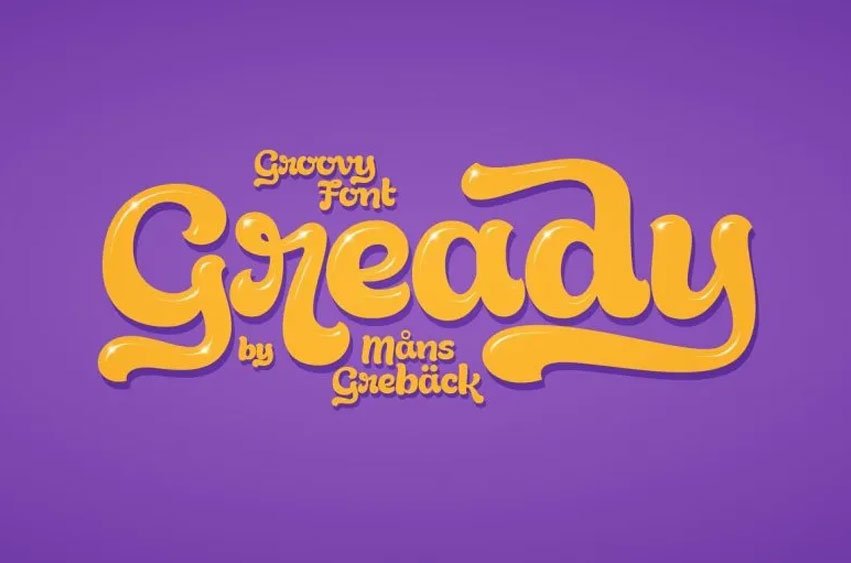
Gready Font Inspired by Modern Vintage & Retro style and combination with old american traditional style. With happy swashes and funny curves, this comic lettering has a flowing and soft character and a greedy, optimistic personality. Use it for a fresh, tasty ice cream or food store logo, a cartoon headline or any playful context speaking to the child within us.
Drawn and created by Mans Greback, this modern paintbrush font family comes in four styles: Thin, Regular, Bold and the crazy Outline variety.
Gready is built with advanced OpenType functionality and has a guaranteed top-notch quality, containing stylistic and contextual alternates, ligatures and more features; all to give you full control and customizability. It has extensive lingual support, covering all Latin-based languages, from North Europe to South Africa, from America to South-East Asia. It contains all characters and symbols you’ll ever need, including all punctuation and numbers.